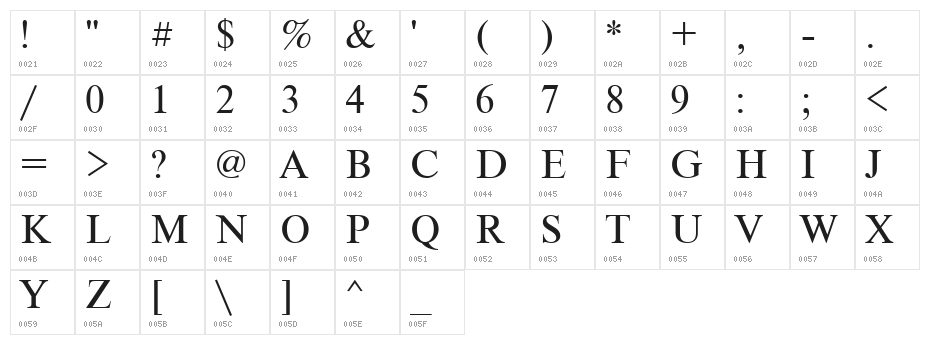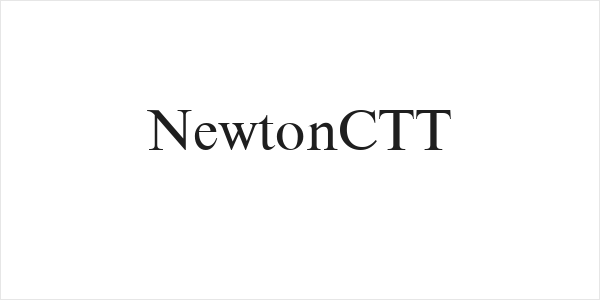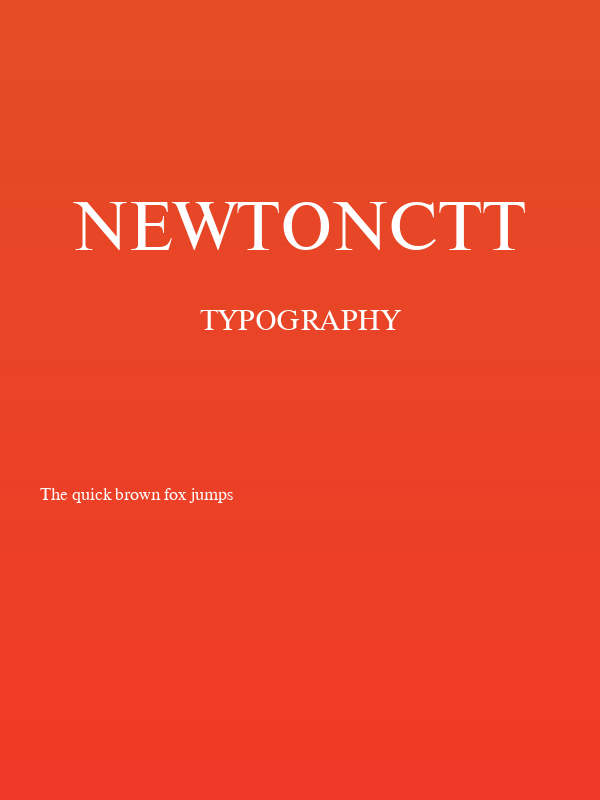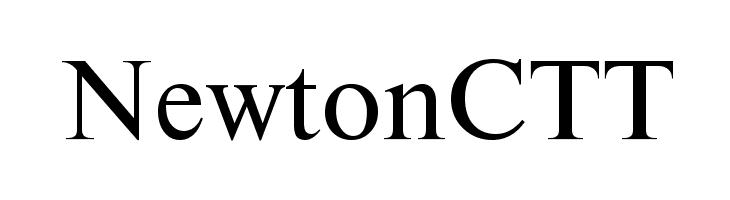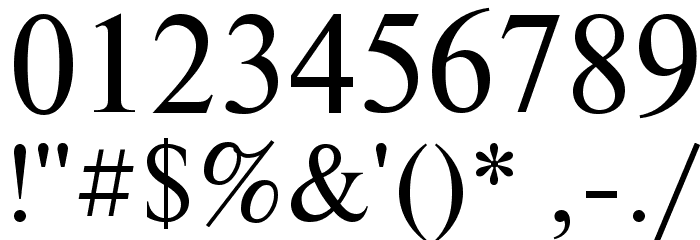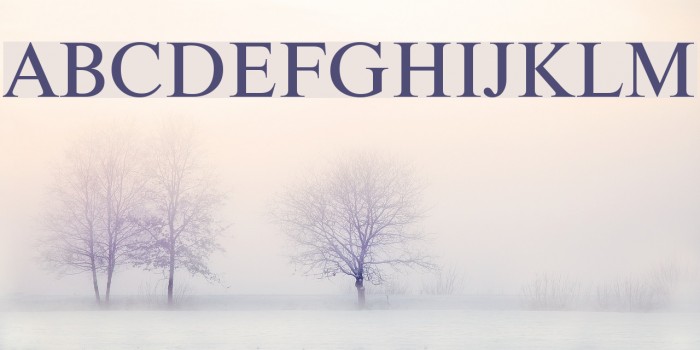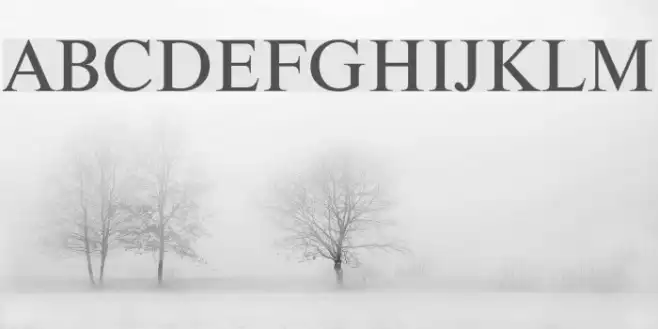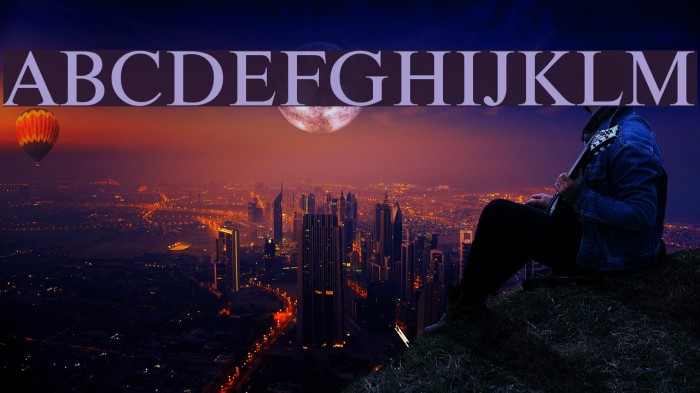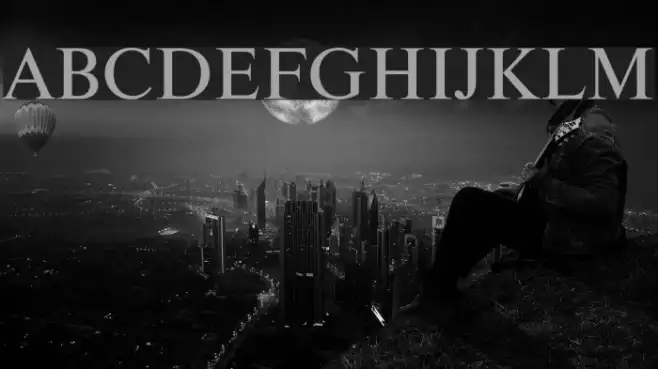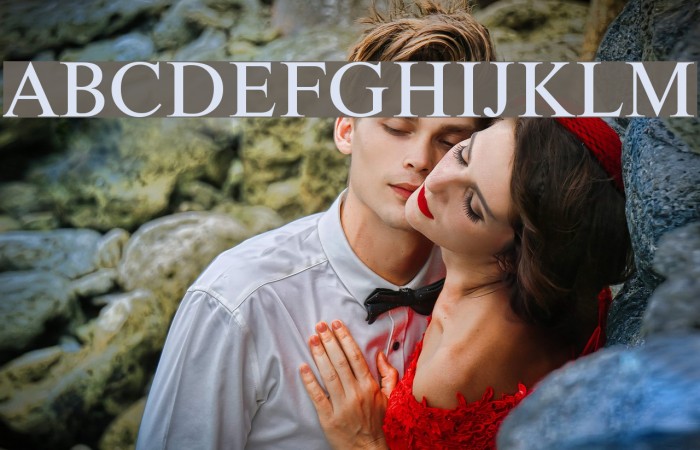
NewtonCTT Font
NewtonCTT Description
This font exhibits a classic serif style with elegant and refined strokes. The characters are well-proportioned, featuring distinct serifs that add a touch of sophistication. The uppercase letters are bold and commanding, while the lowercase letters maintain a graceful flow. The numerals are clear and balanced, making them easy to read. Special characters are designed with the same attention to detail, ensuring consistency across the font. The overall appearance is timeless, making it suitable for a variety of applications where a traditional yet stylish look is desired.
| Proposed Projects | Ideal for editorial design, book covers, formal invitations, and branding projects that require a touch of elegance. |